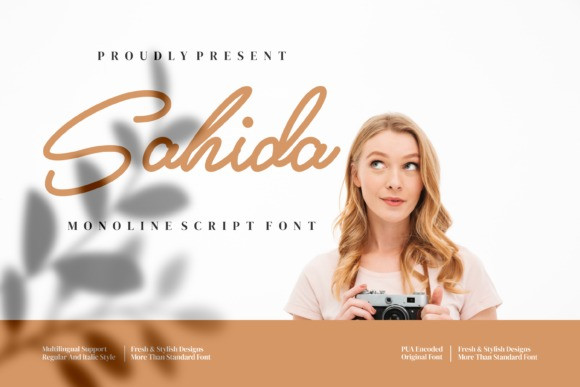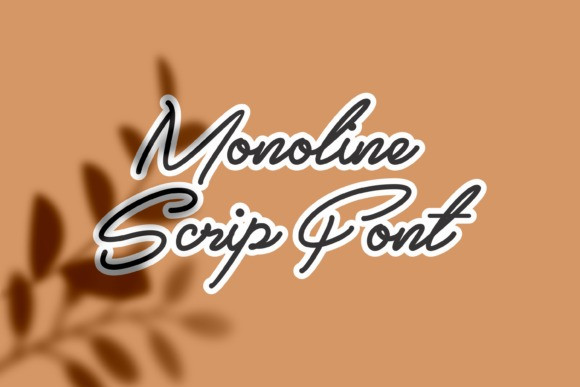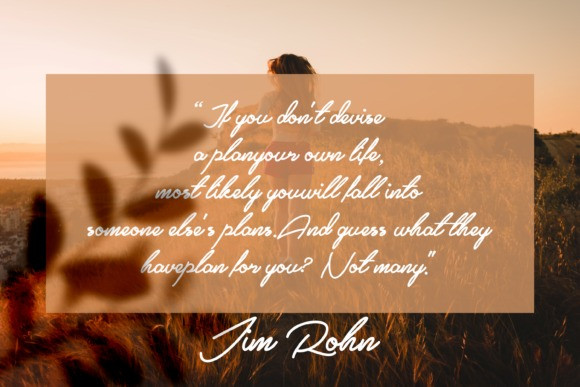
Sahida Font
Sahida is a beautiful, well balanced and vintage styled script font. It is defined by smooth curves and is perfect for fashion branding or editorial designs. Add it confidently to your projects, and you will love the results.